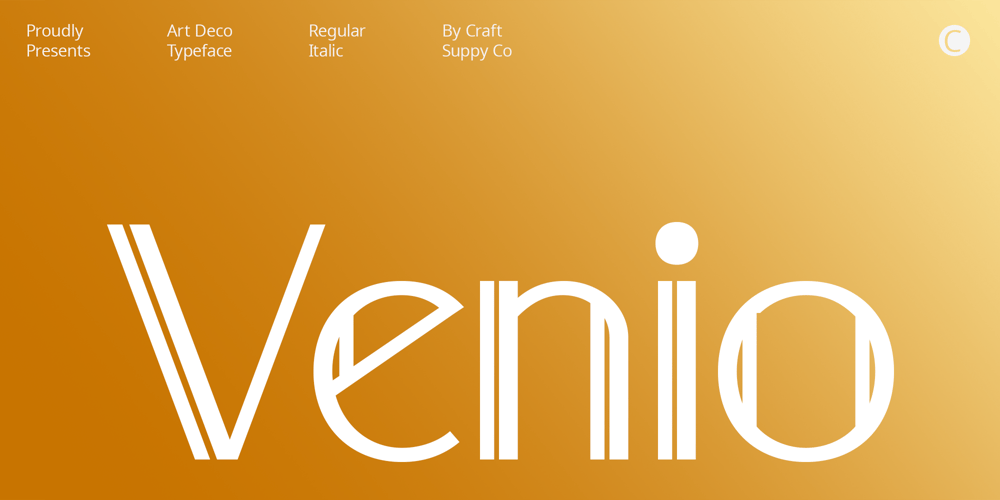
Venio Font Family was designed by Trio Nazzar Saputra, Wahyu Hadi Yuana and published by Craft Supply Co. Venio contains 2 styles and family package options. Venio – Double Line Font: Display Typography with Art Deco FlairDeco-inspired Elegance Infused with Art Deco sophistication, Venio, a double-line sans-serif font, brings timeless elegance to your designs.Distinctive Display Presence Venio ensures a bold yet refined aesthetic for logos and headlines, making your display stand out with its distinctive double-line design.Artful Symmetry Paying homage to Art Deco’s geometric precision, Venio’s symmetrical lines provide a visually pleasing experience, adding a touch of artistic flair.